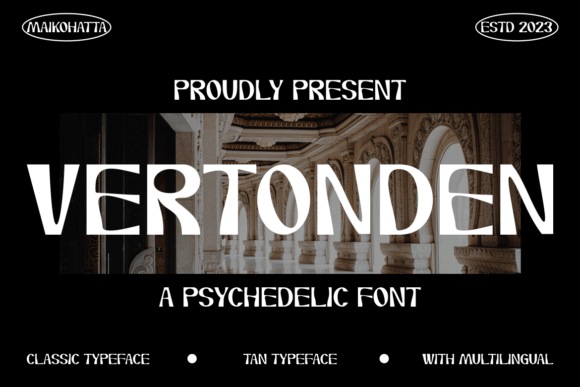
Welcome to the world of Vertonden, an extraordinary display font family that will transport you to a realm of creative possibilities. Dive into a universe of energetic and abstract characters that dance across your screen, beckoning you to embark on a journey of typographic exploration. Let your imagination soar as you witness the harmonious fusion of artistic inspiration and contemporary design, resulting in a captivating visual experience that transcends ordinary fonts.
Unleash your inner rebel and embrace the unconventional aura of Vertonden. Its bold and expressive nature challenges traditional boundaries, inviting you to break free from the mundane and embrace the extraordinary. With its psychedelic flair, this font ignites a firework display of creativity, combining vibrant colors, eye-catching designs, and artistic elements that ignite the senses and leave an unforgettable impression.
Imagine crafting love letters that ignite hearts and stir souls. Pour your emotions onto the canvas of Vertonden, letting its unique charm weave a tapestry of passion and longing. Each letter, a brushstroke of desire, carries the essence of your affection, reaching out to your beloved with an eloquence that transcends words.
Picture posters and advertisements that leap off the page, capturing attention and igniting imaginations. Let Vertonden's vibrant energy infuse your designs with an experimental edge, creating a visual feast that captivates and compels. Its inherent boldness demands attention, making your messages impossible to ignore, ensuring your creations leave an indelible mark on the minds of your audience.
Designers, rejoice! Vertonden is your secret weapon, a tool that amplifies your creativity and pushes the boundaries of your imagination. Its contemporary design perspective breathes life into your projects, infusing them with a sense of adventure and creative experimentation. Whether you're crafting logos that exude individuality or crafting websites that exude a cutting-edge aesthetic, Vertonden empowers you to make a statement, leaving a lasting impression.